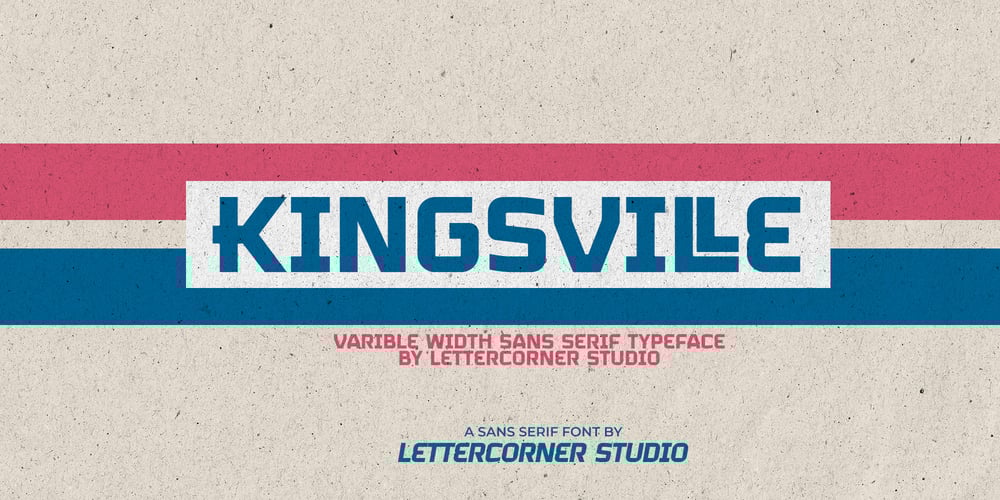
Kingsville Font Family was designed by Muhammad Afif Ersya and published by Mevstory Studio. Kingsville contains 2 styles and family package options. Kingsville is a bold and strong condensed font that’s here to make a statement. Drawing inspiration from the sleek modern designs of the 2000s, Kingsville brings back that iconic vibe with a fresh twist. This font is your go-to choice for creating stunning posters, captivating website headlines, and sleek interface designs.Kingsville typeface has a strong presence and is perfect for display sizes, making it an excellent candidate for impressive logo design with its contemporary sans serif design.